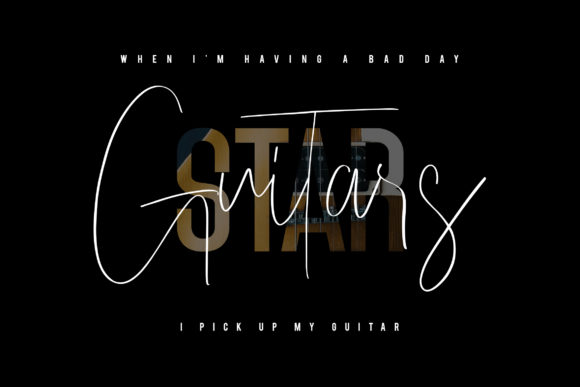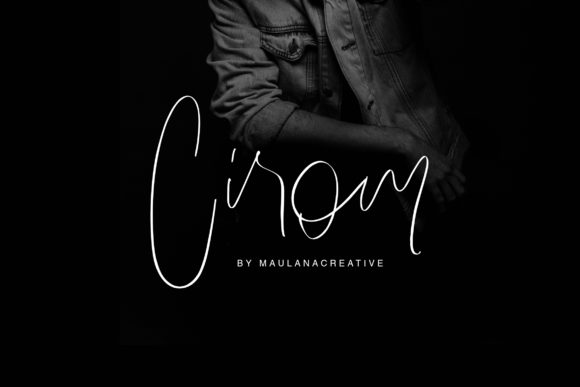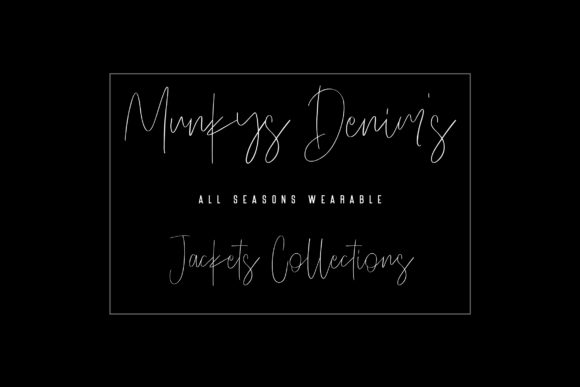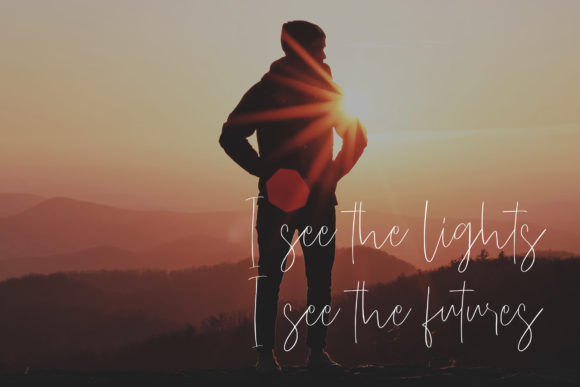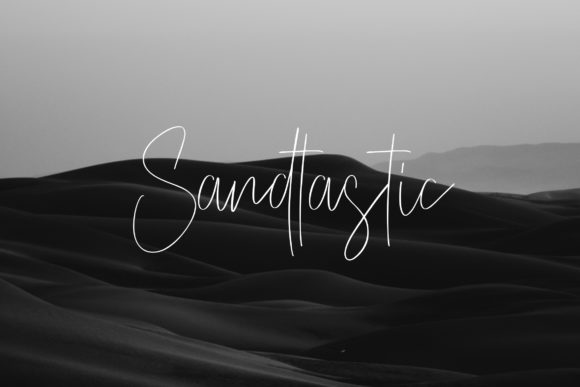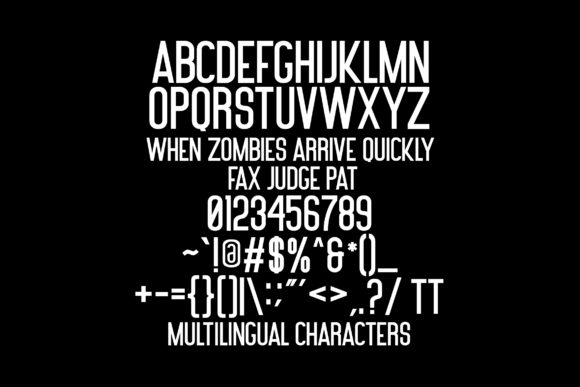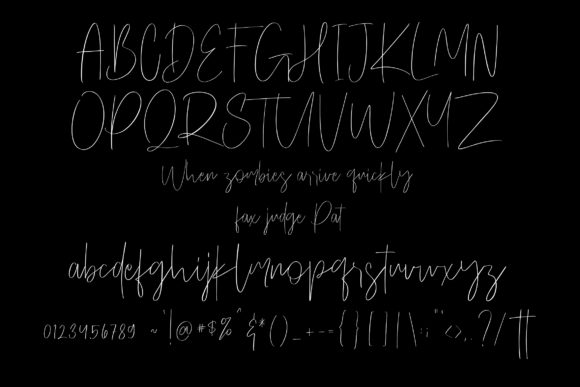
Hello Subrim Font
Hello Subrim is a beautiful duo font (Sans Serif and Script). This font will look outstanding in any context, whether it’s being used on busy backgrounds or as a standalone headline!